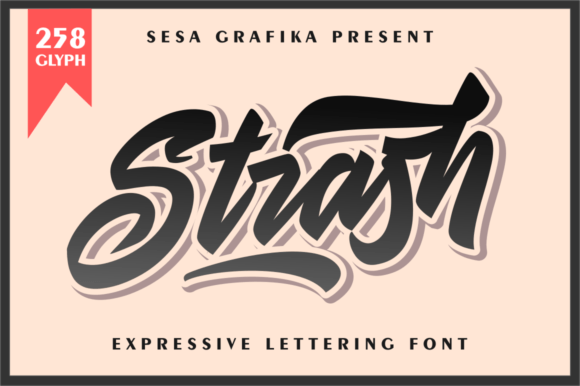
Journey into the world of Strash Font, a captivating display font family that will ignite your creativity and transform your designs into masterpieces. Designed by the talented sesa_grafika, Strash Font is meticulously crafted with a natural expressive handwriting style, capturing the essence of authenticity and charm.
Indulge in the limitless possibilities of Strash Font, the perfect companion for your creative endeavors. Whether you're a seasoned designer or just starting your journey, this font will elevate your projects to new heights. Create stunning logos that exude professionalism and uniqueness, design t-shirts that speak volumes, and craft posters that captivate and inspire. The versatility of Strash Font knows no bounds, allowing you to effortlessly add a touch of elegance and sophistication to any project you undertake.
Unleash the boundless creativity within you and explore the endless applications of Strash Font. From eye-catching social media graphics that demand attention to captivating website designs that leave a lasting impression, this font will amplify your message and make your creations shine. Let your imagination soar as you craft invitations that exude warmth and charm, and design business cards that reflect your brand's personality and professionalism.
With Strash Font, you'll experience the joy of effortless creativity. PUA-encoded, this font grants you access to a delightful array of glyphs and swashes, allowing you to effortlessly incorporate intricate details and stunning flourishes into your designs. Unleash your artistic flair and witness the transformation of your projects as they blossom into works of art.
Embrace the power of Strash Font and embark on a creative journey like no other. Its natural expressive handwriting style will infuse your designs with a touch of authenticity and charm, while its versatility empowers you to tackle any project with confidence. Experience the joy of effortless creativity and elevate your designs to new heights with Strash Font.